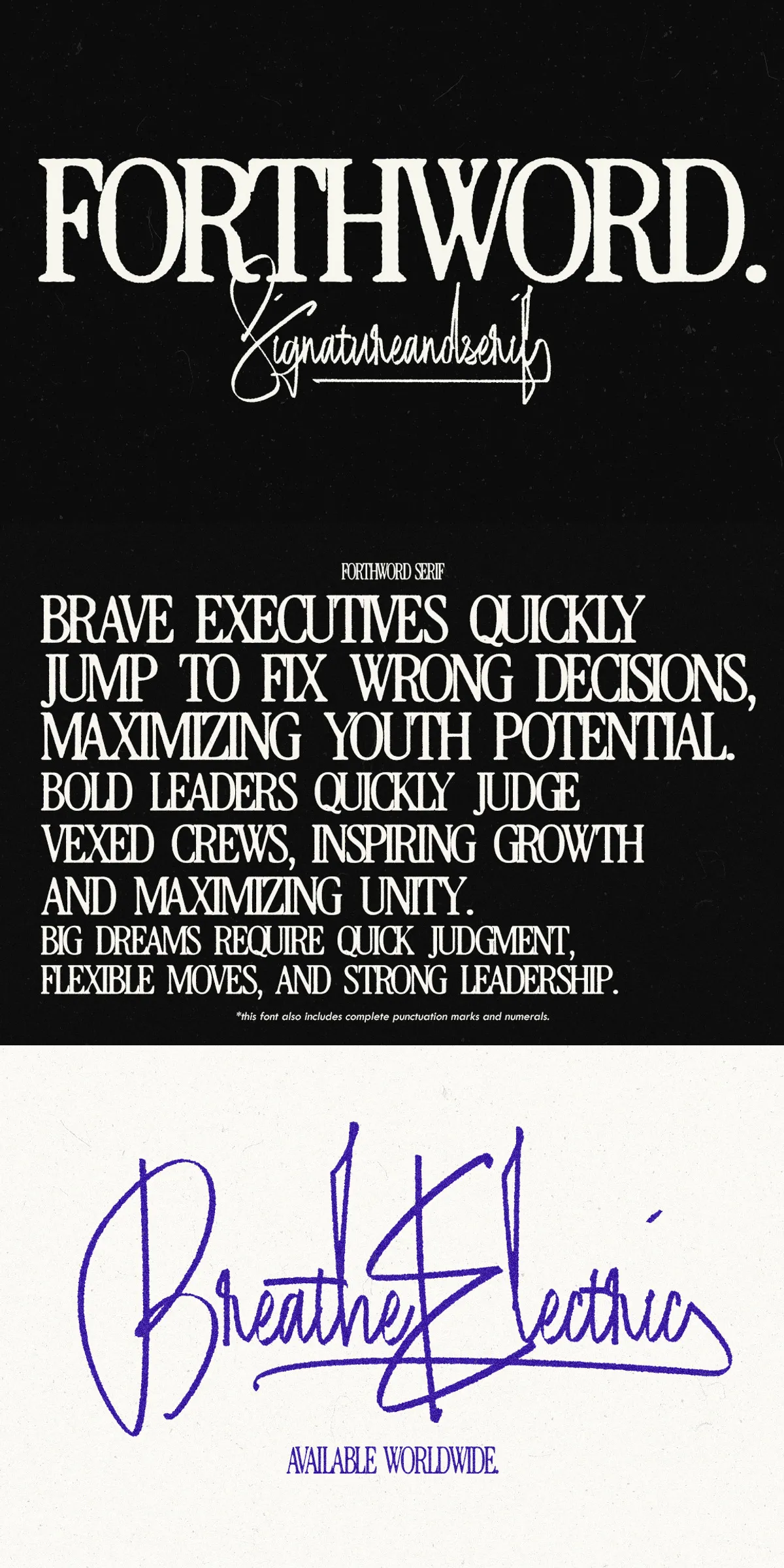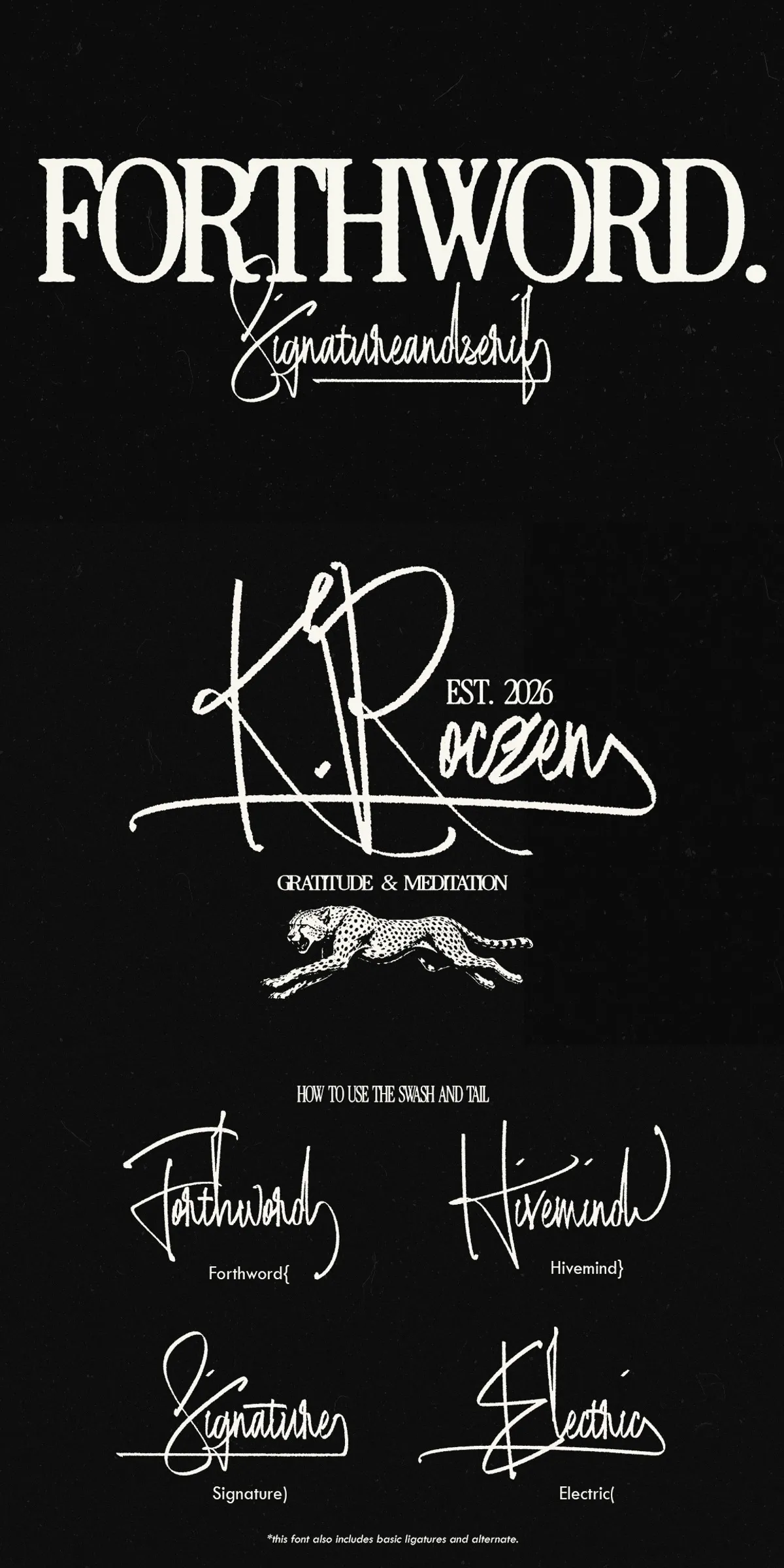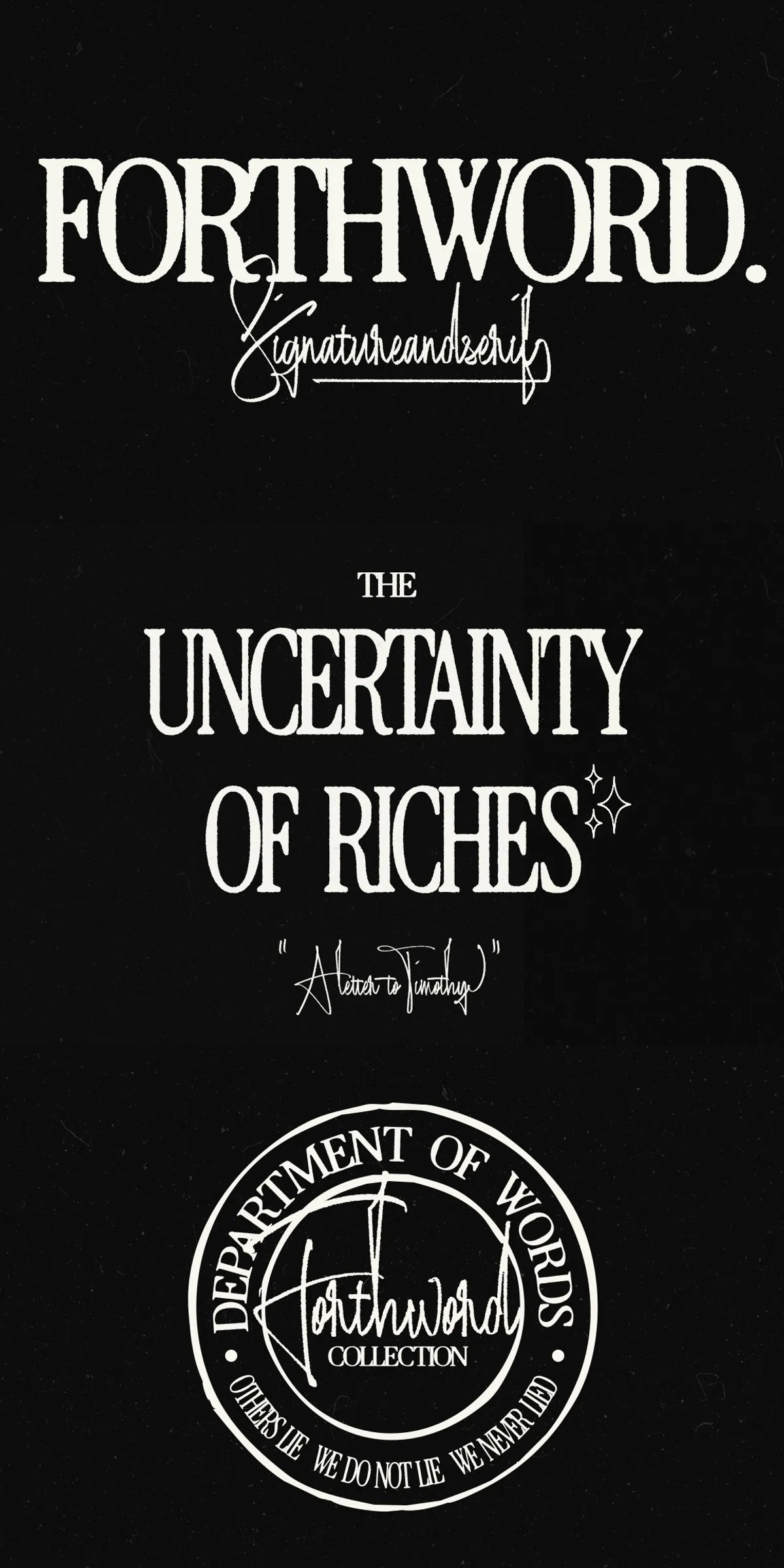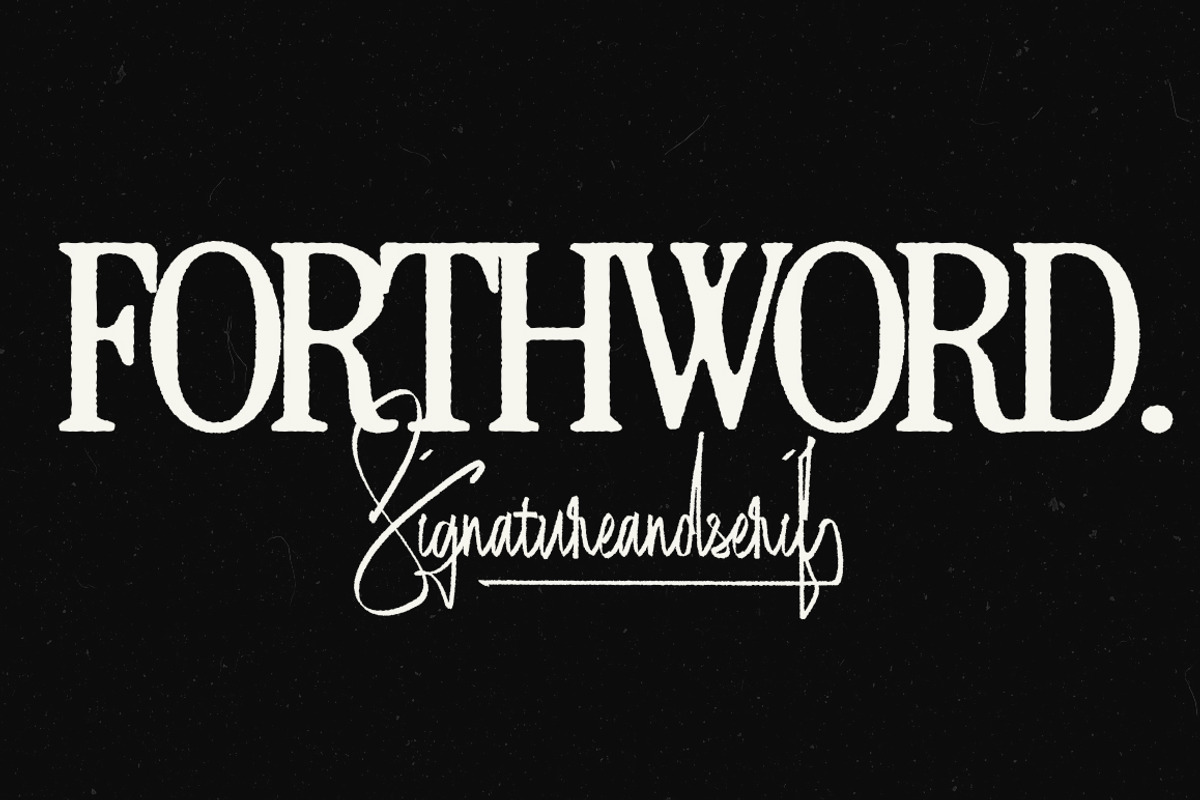
Forthword Signature & Serif
The Forthword Signature & Serif collection stands as a testament to the power of combining historical inspiration with modern digital utility. Designed to deliver maximum visual impact through an organic and harmonious aesthetic, this font duo draws its primary inspiration from the textured, handwritten letters found on ancient scrolls. By infusing this classical heritage with a refreshed modern twist, Forthword creates a versatile toolkit that allows designers to seamlessly overlay typography onto reels, social media content, and high-resolution digital projects.
Mastering the Art of Readability and Style
Typography often struggles to balance readability with artistic expression. Forthword resolves this tension by offering two distinct yet complementary styles. The Forthword Serif component features tight spacing and precise kerning, ensuring that every letter remains highly readable even at smaller sizes. This characteristic makes it an exceptional choice for logos, editorial headlines, book covers, and premium packaging where clarity and strength are paramount.
The Forthword Signature style takes a different approach, prioritizing uniqueness over generic handlettered aesthetics. Designed to mimic the natural flow of human handwriting, the capitals are crafted to be 80% larger than the lowercase letters. This intentional disproportion adds a dynamic visual rhythm, making the font ideal for initials, personal branding, and signature-style headers. The inclusion of long swashes and short tails allows designers to customize the end of names, adding a personal touch that generic fonts simply cannot replicate.
Multiple Variations for Every Creative Need
One of the standout features of the Forthword bundle is its extensive range of variations. The Serif family is not limited to a single look; it comes in three distinct weights—Regular, Extended, and Compressed. This variety allows designers to adjust the visual weight and density of their text to fit specific layout constraints without losing the font’s characteristic organic feel.
Whether you need the airy elegance of the Extended version for a luxury brand identity or the compact efficiency of the Compressed style for dense informational graphics, Forthword adapts to your creative vision. The Signature font complements these variations by providing a consistent, handwritten anchor that ties the entire typographic system together.
The font features include basic alphabet support, numerals, punctuation, and multilingual support for the Serif variant. The Signature font features rough edges and realistic human signature aesthetics, while the Serif font offers multiple variations and high readability.
Ideal Use Cases
The Forthword Signature & Serif font is incredibly versatile. It is perfect for:
• Personal Branding: Use the Signature font for your logo or business card to add a handcrafted, authentic feel.
• Social Media Content: Overlay the Serif font on Instagram reels and TikTok videos for a modern, textured look.
• Editorial Design: Use the Extended or Compressed Serif variations for magazine layouts and book covers.
• Luxury Branding: Combine the two styles to create a sophisticated typographic system that balances tradition with modernity.